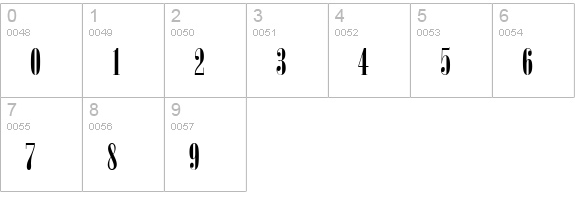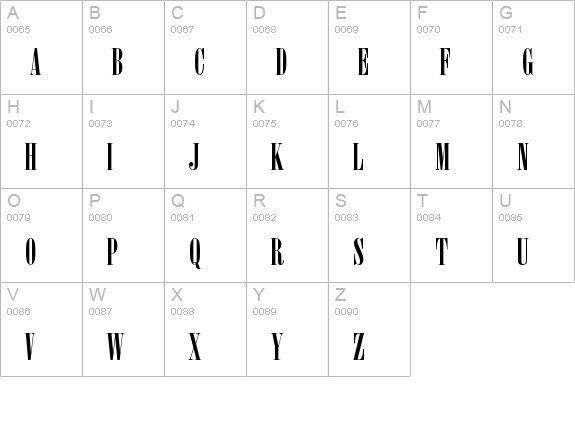
Arsis DReg Font Details
Arsis DReg font is a modern and elegant typeface that exudes sophistication and style. The clean lines and unique character shapes make this font perfect for a wide range of design projects, from branding to editorial design. The versatility of Arsis DReg font allows it to be used in both digital and print applications with ease. What sets Arsis DReg font apart is its perfect balance of classic and contemporary elements, making it suitable for both traditional and modern design aesthetics. The font's legibility and clarity ensure that your message will be conveyed effectively, no matter the size or medium. And the best part? Arsis DReg font is completely free to download at FontsMarket.com, making it accessible to designers and creatives of all levels. Whether you're working on a personal project or a client commission, Arsis DReg font is a versatile and stylish option that will elevate your designs to the next level.